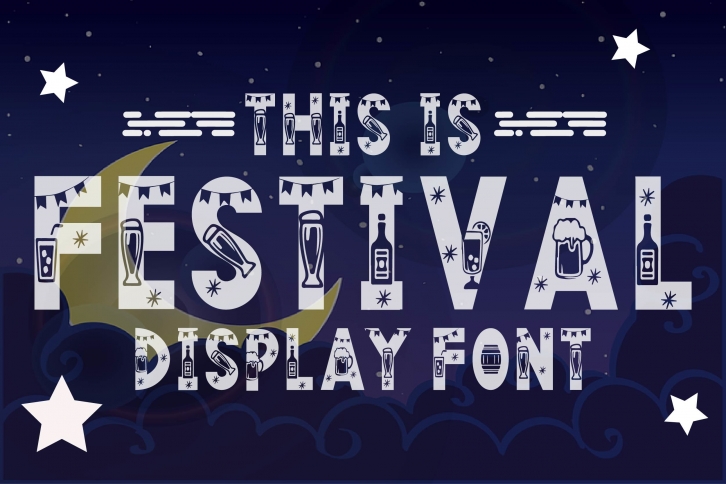
Festival is a cool and original looking decorative font. It is suitable for logotype, headline font, in corporate identity, brand identity, apparel industry, poster, music, movie, game, magazine, book, comic, cartoon, YouTube, Instagram, website, or any of your creative design projects.